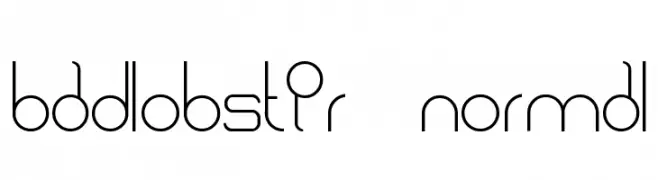
( Deano Fonts )
A playful, hand-drawn font with a whimsical and informal style.
( Baka - www.ne.jp/asahi/kyakirun/kya/makutsu/bakafonts/bakafontse.htm )
A segmented, futuristic font with a digital display style.
( CloutierFontes - www.cloutierfontes.ca )
A bold, decorative font with a vintage, distressed texture.
( Digital Magic - www.graphicdesignplus.com/helen/digitalmagic/ )
An ornate and decorative font featuring intricate patterns and embellishments.
( Digital Magic - www.graphicdesignplus.com/helen/digitalmagic/ )
Highly decorative and ornate illustrated font with floral motifs.
( Digital Magic - www.graphicdesignplus.com/helen/digitalmagic/ )
Ornamental, illustrative font with detailed, artistic glyphs.
( Digital Magic - www.graphicdesignplus.com/helen/digitalmagic/ )
A collection of decorative floral and ornamental motifs.
( Cyberbuny Creations )
Ornamental dingbat font with diverse decorative motifs and frames.
( Apostrophic Lab - pedroreina.net/apostrophiclab/ )
A classic serif font with an elegant italic slant and medium contrast.
( Chequered Ink - chequered.ink/ )
A playful, handwritten font with a quirky and informal style.
( Dieter Lausus )
A playful, handwritten-style font with dynamic strokes and a casual feel.
( Chequered Ink - chequered.ink/ )
A segmented, geometric font inspired by digital displays.
( CowLoverSecret Roblox )
A pixelated, dot-matrix style font with a digital, retro aesthetic.
( Blambot - www.blambot.com )
A playful, handwritten font with a bold and casual style.
( Devin P. Magruder )
A geometric, tech-inspired font with rounded edges and uniform line thickness.
( Devin P. Magruder )
A geometric, digital-inspired font with a blocky, angular design and uniform stroke widths.
( Brynda1231 Industries )
A pixelated, retro-style font with a blocky, digital appearance.
( CelestialStarMan - celestialstarman.deviantart.com )
A bold, geometric font with a modern and industrial aesthetic.
( Darcy Baldwin Fonts - darcybaldwin.com )
A playful, handwritten font with tall, narrow letters and thin strokes.
( Darcy Baldwin Fonts - darcybaldwin.com )
A bold, playful font with thick, rounded letters and a friendly style.
( Darcy Baldwin Fonts - darcybaldwin.com )
An elegant and decorative font with intricate swirls and loops.
( Darcy Baldwin Fonts - darcybaldwin.com )
A playful, bold handwritten font with a casual and friendly style.